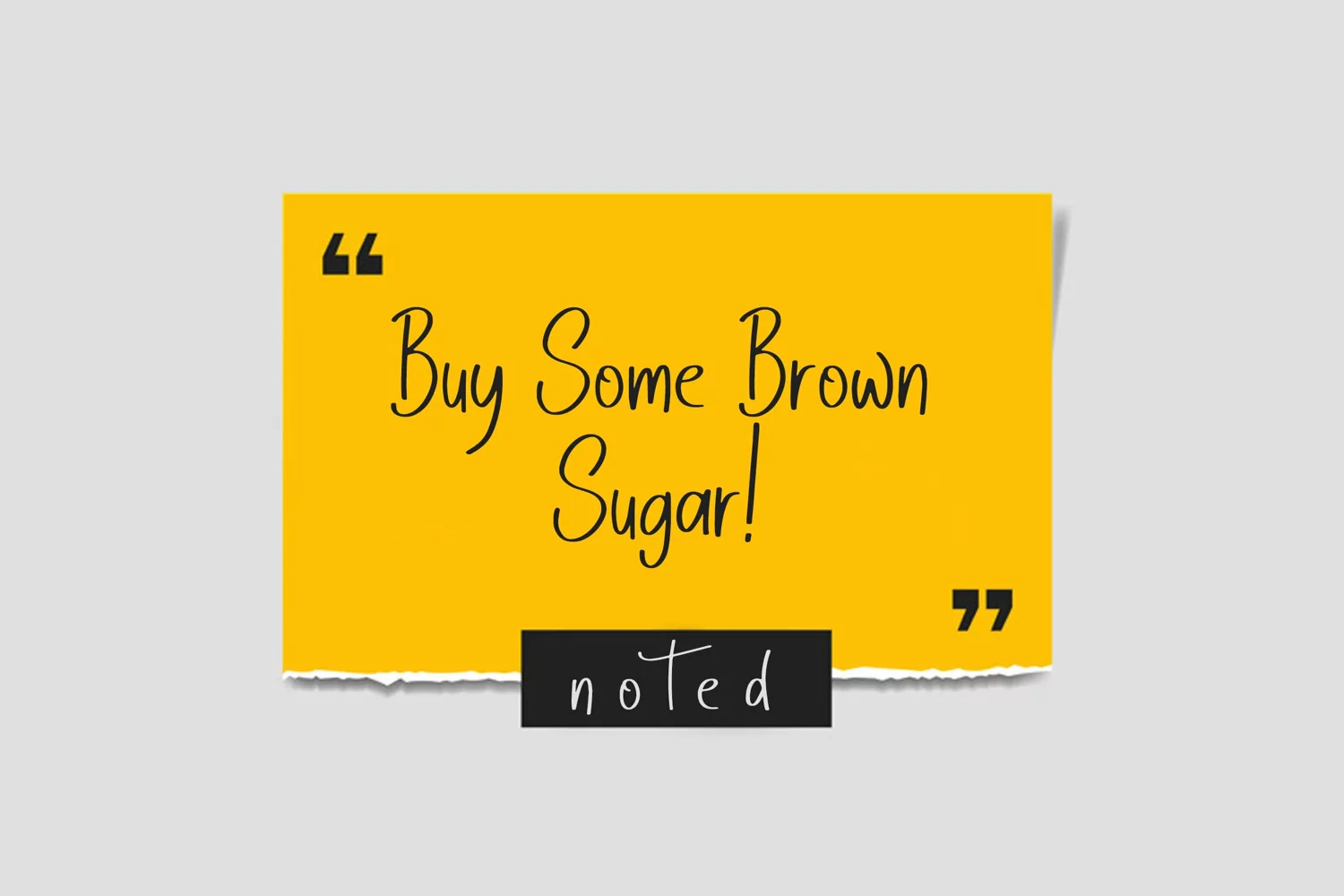
Anastasia is a cool, friendly, and whimsical handwritten font. Add to each of your party invitations, gathering, or pretty much any design that requires a touch of youth and joy.
Anastasia